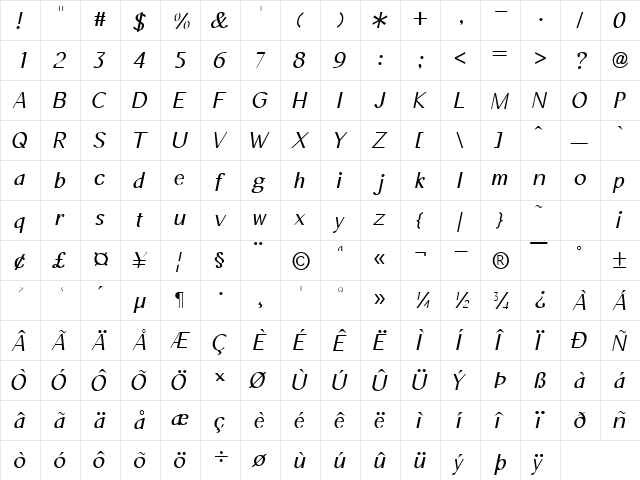
Ballymun RO Italic
| Designer | Ronald B. Ogawa |
Design Context for Ballymun RO Typeface
Ballymun RO is a composed and adaptable typeface that performs quietly and consistently across a wide range of design contexts. The dynamic lean of this cut emphasises speed and emphasis in any layout.